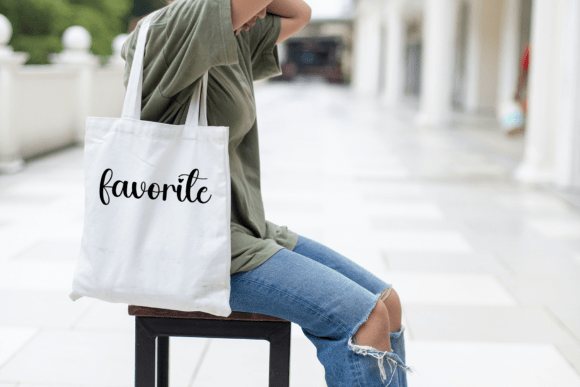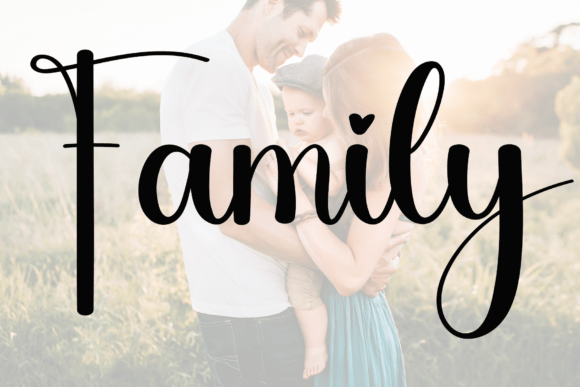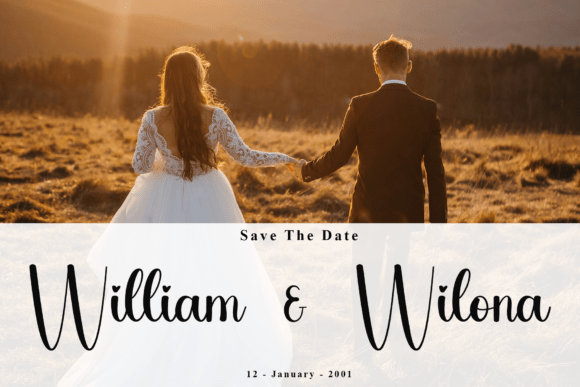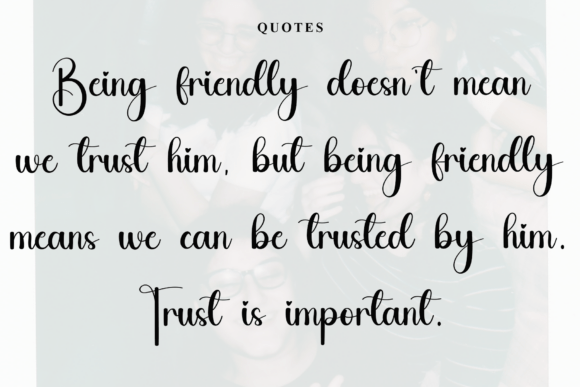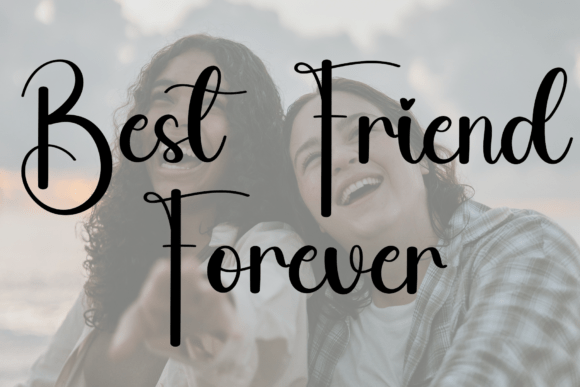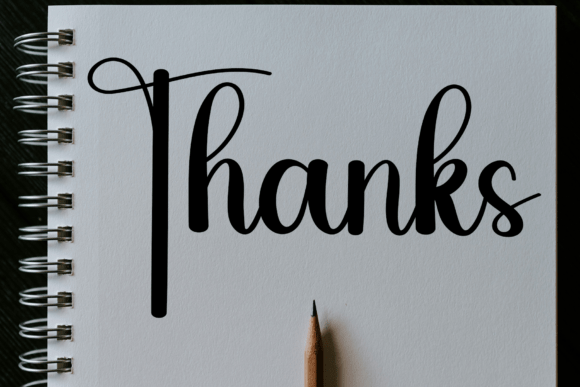
The Perfect Pen Stroke: Unveiling the Bestie Font
Remember the thrill of scribbling in a journal, the joy of crafting handwritten notes to loved ones, or the satisfaction of signing your name with flair? These moments capture the essence of creative expression, and that’s exactly what the Bestie Font embodies. This stylish handwritten script font is designed to add a touch of elegance and charm to your designs.
Whether you’re crafting invitations, logos, or branding materials, the Bestie Font is the perfect companion. Its flowing curves and delicate strokes bring warmth and creativity to your projects, making it an invaluable asset for designers. With the Bestie Font, you can infuse your work with a personal and sophisticated touch that sets you apart from the crowd.
Key Features of Bestie Font
- Unique Characteristics: The font features a playful, handwritten style with a mix of cursive and sans-serif elements, giving it a friendly and approachable feel.
Designer Review: Bestie Font
I recently had the chance to work with the Bestie Font, and I must say it’s a delightful addition to any design project. ✨ The font’s playful and cursive nature makes it perfect for creating a friendly and approachable atmosphere. It’s especially great for use in social media graphics, invitations, and other design elements where you want to convey a sense of warmth and connection.
One of the things I love about Bestie Font is its versatility. ✨ It comes in a range of weights, from light to bold, which makes it easy to use in a variety of contexts. Whether you’re looking to create a subtle background texture or a bold headline, Bestie Font has got you covered.
- ⚠️ The font may not be suitable for use in formal or professional settings, as its playful nature may come across as unprofessional.
- ⚠️ Some users may find the font’s cursive style difficult to read, particularly in smaller font sizes or when used in complex layouts.
Overall, I’m really impressed with the Bestie Font. It’s a great choice for designers looking to add a touch of personality and whimsy to their projects. While it may have some limitations, the benefits far outweigh the drawbacks. I’d definitely recommend giving it a try!
Tips for Getting the Most Out of Bestie Font
For best results, pair Bestie Font with bold, playful colors and graphics. Use it to create eye-catching headings, quotes, or social media posts. Experiment with different font sizes and styles to add visual interest to your designs.
Bestie Font is perfect for:
- Social media posts and graphics
- Blog headings and quotes
- Food and drink labels